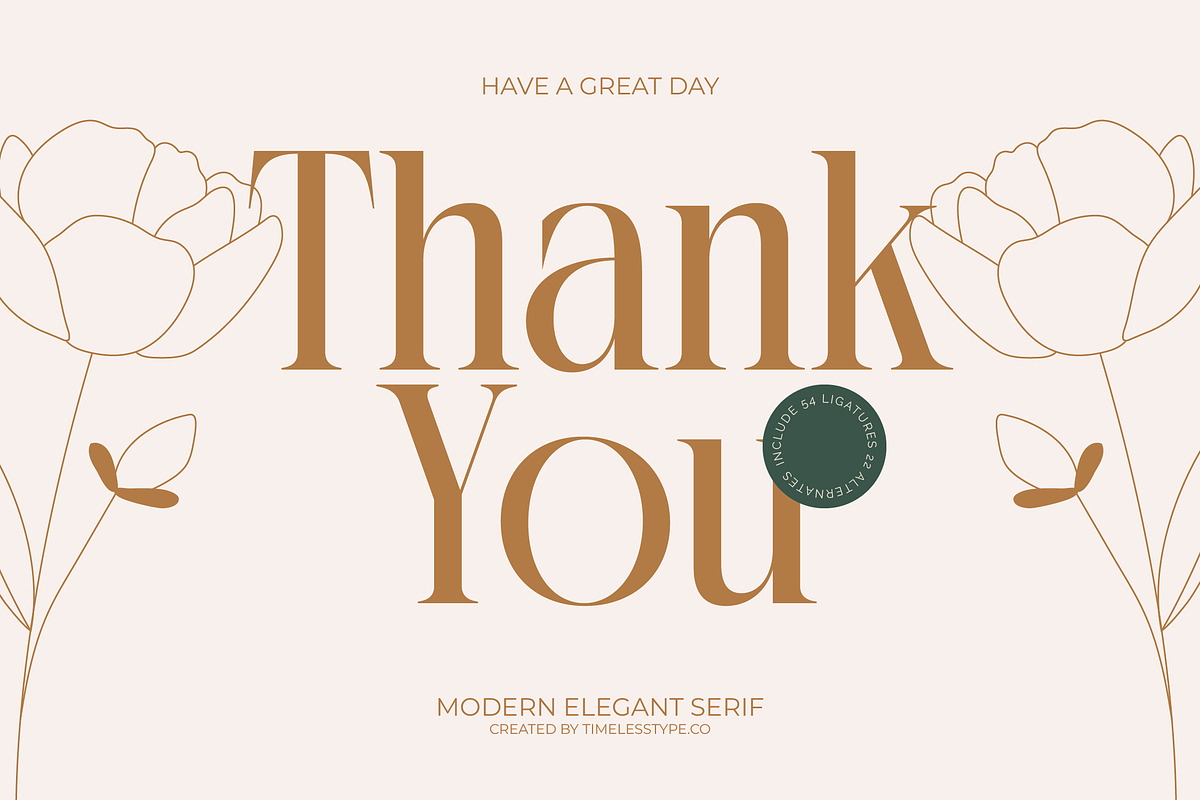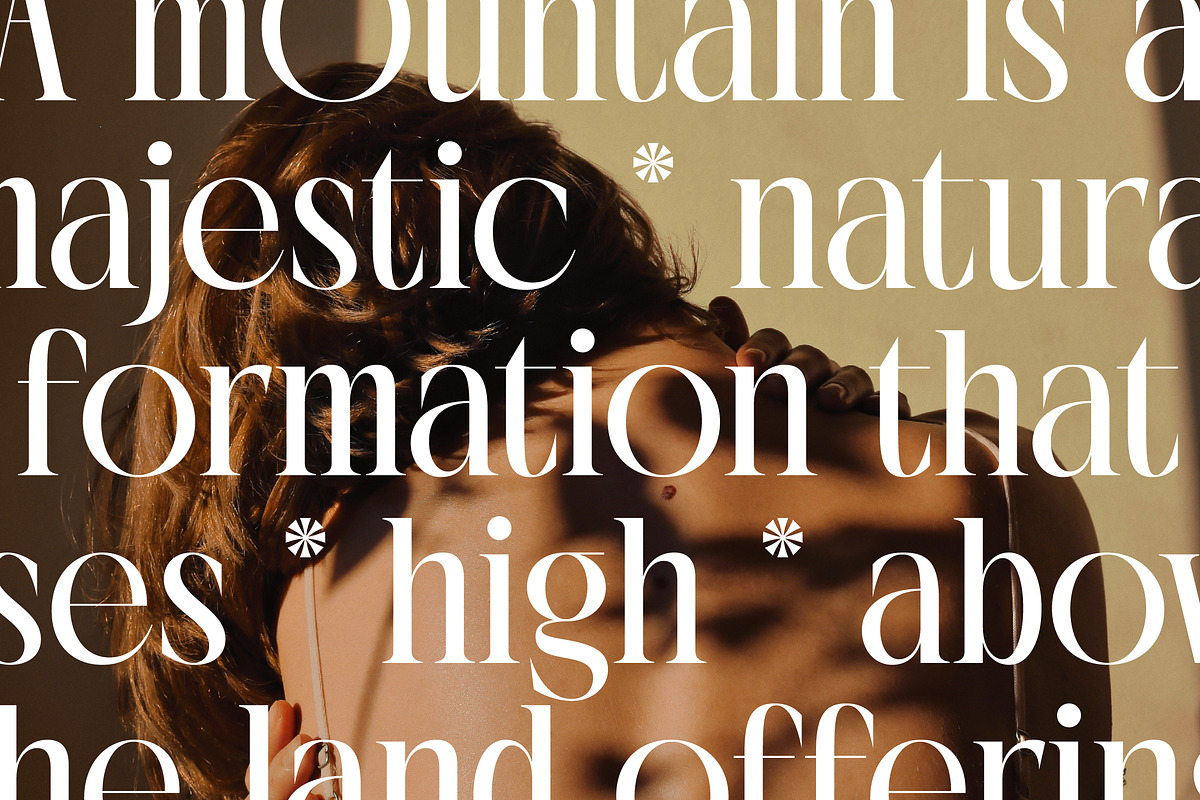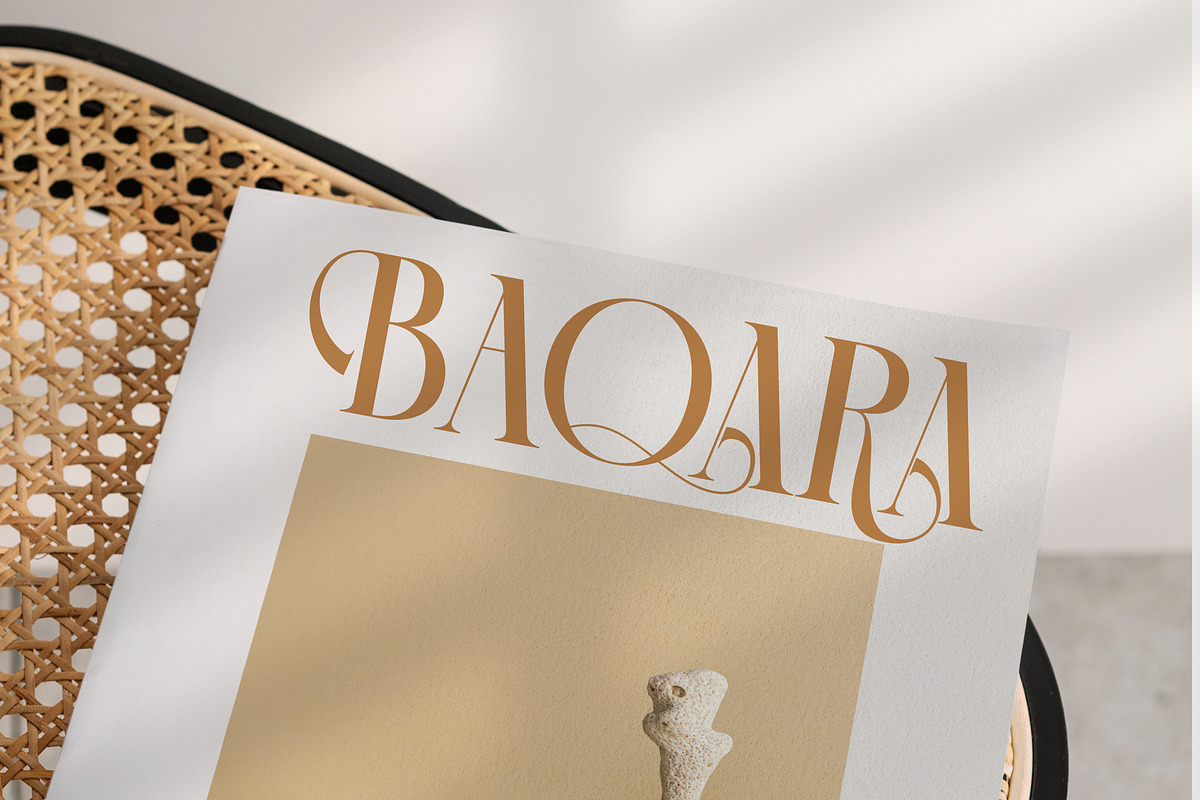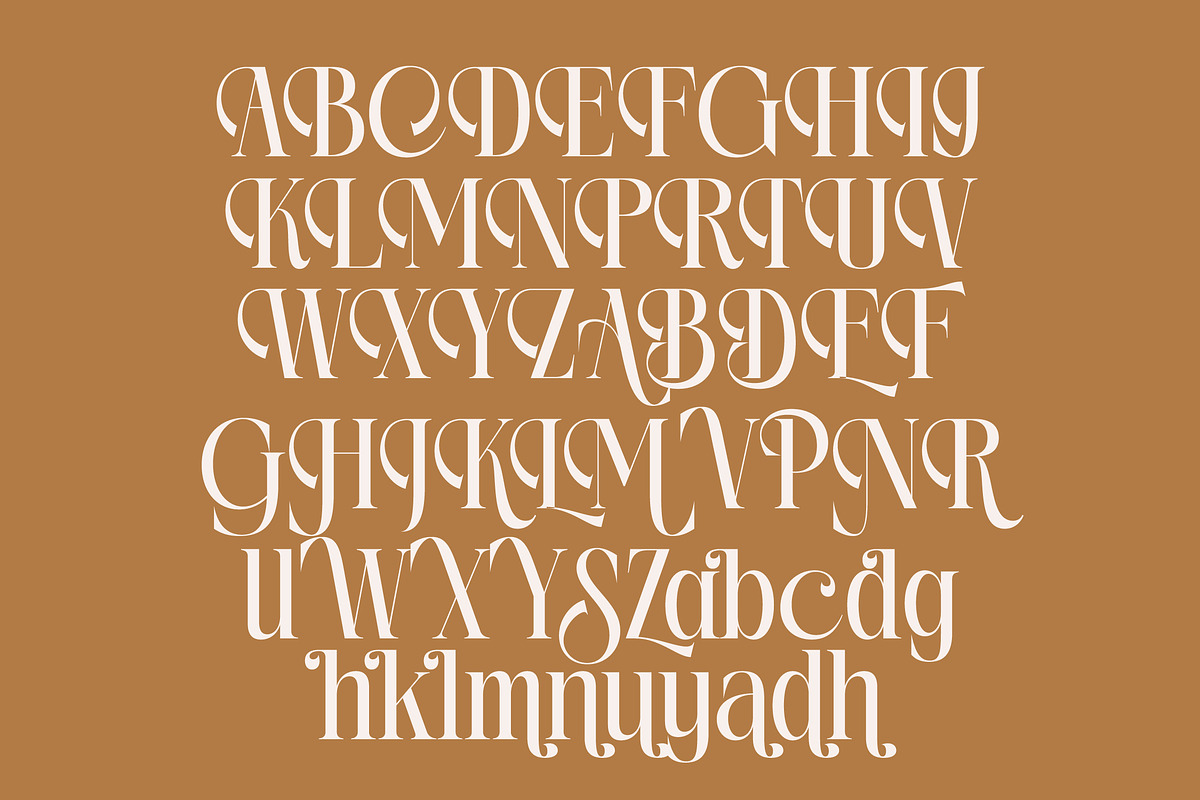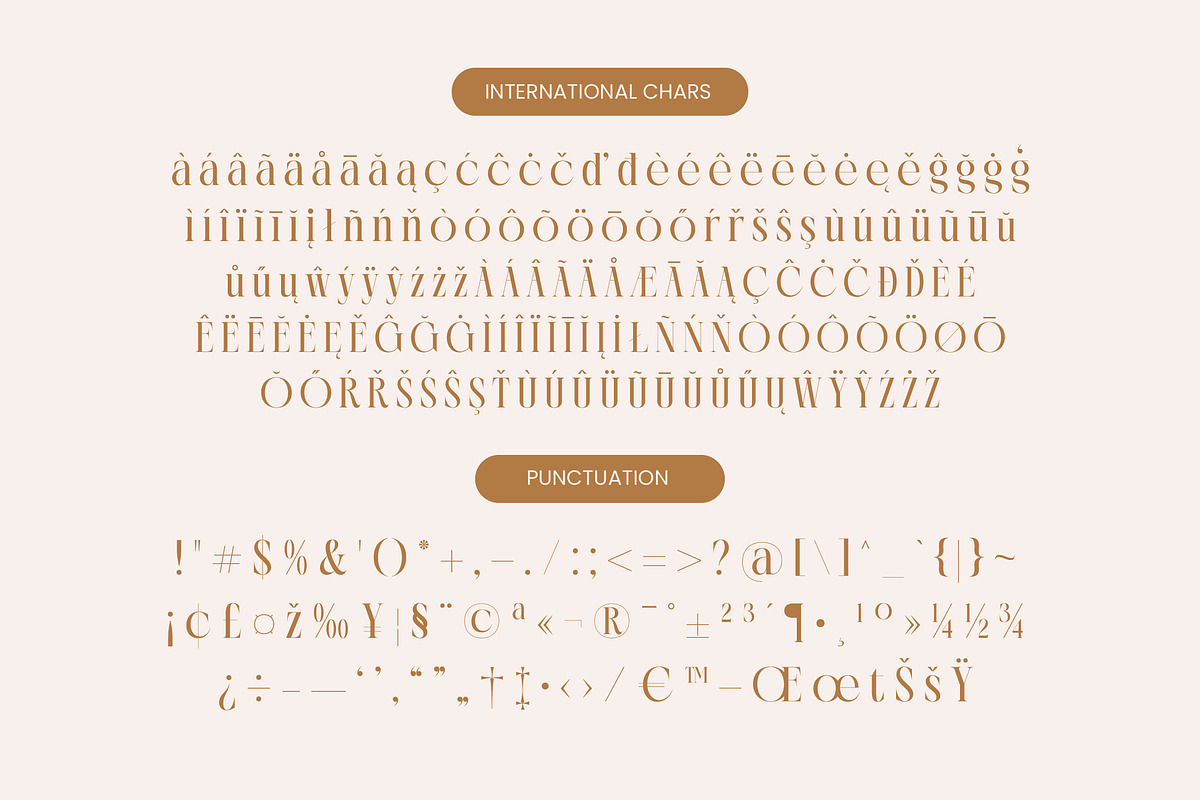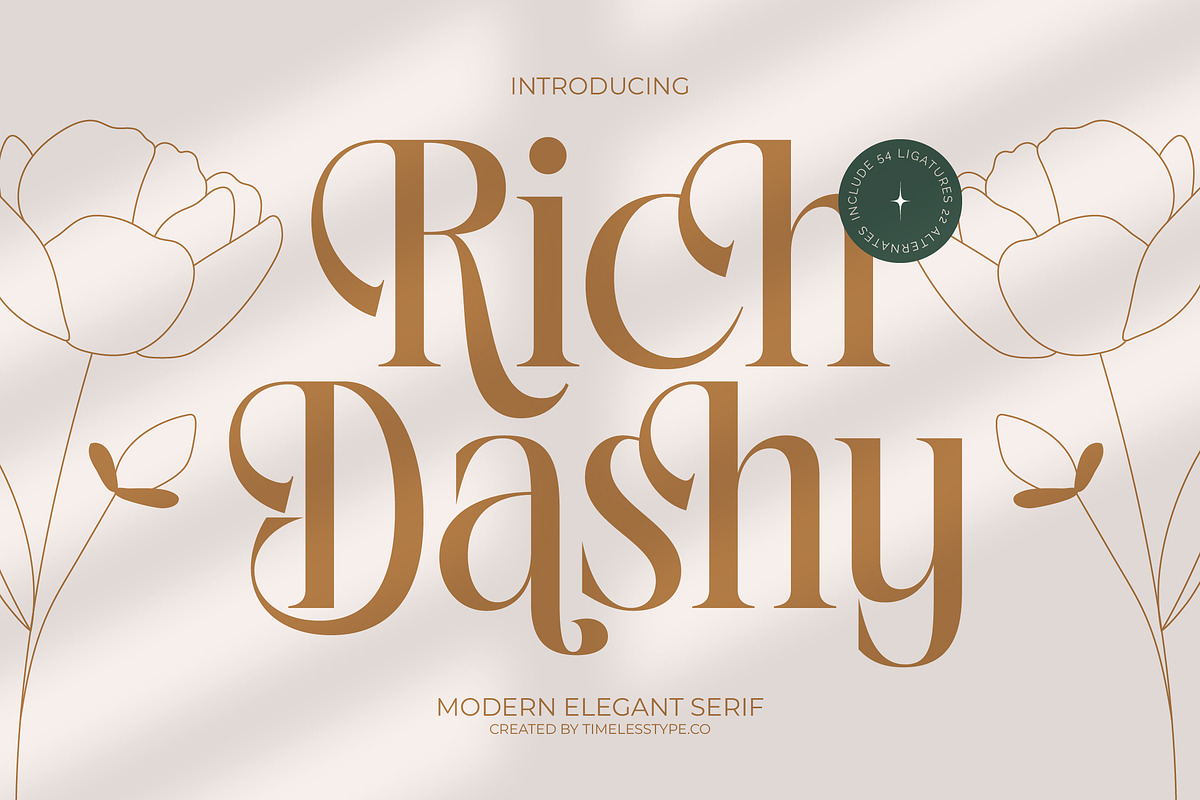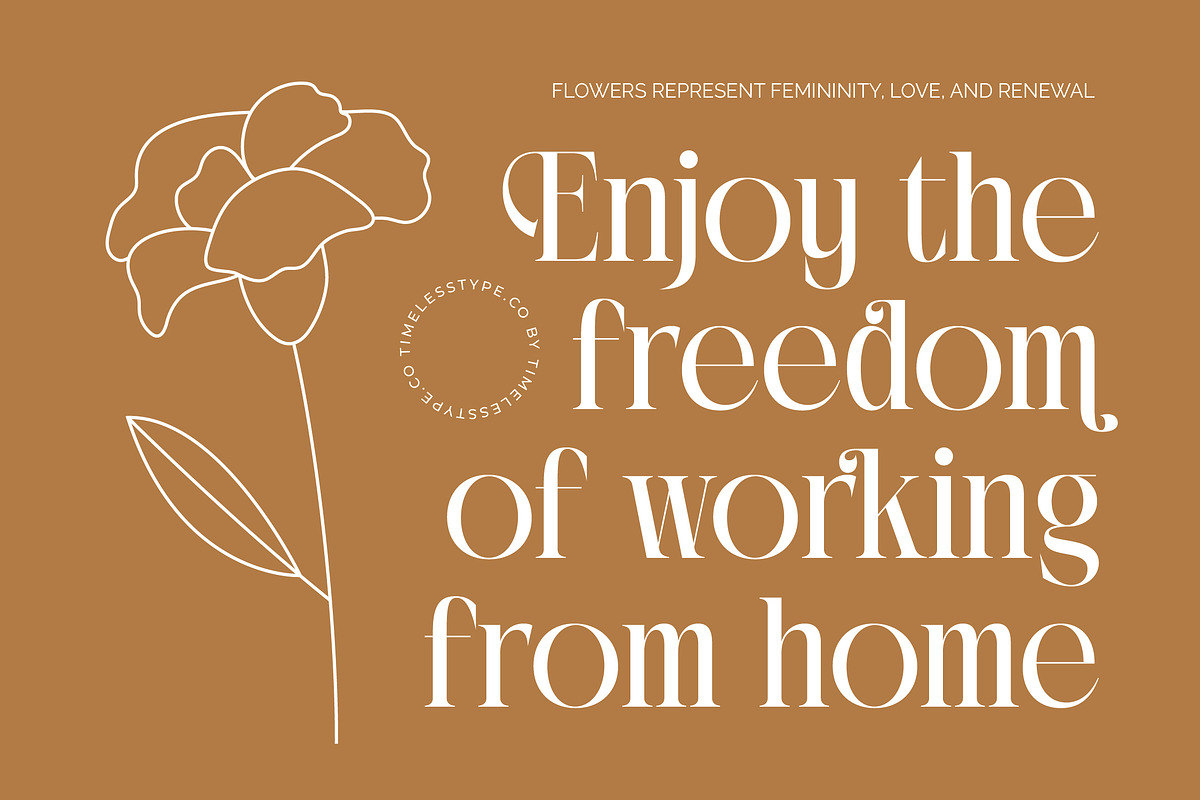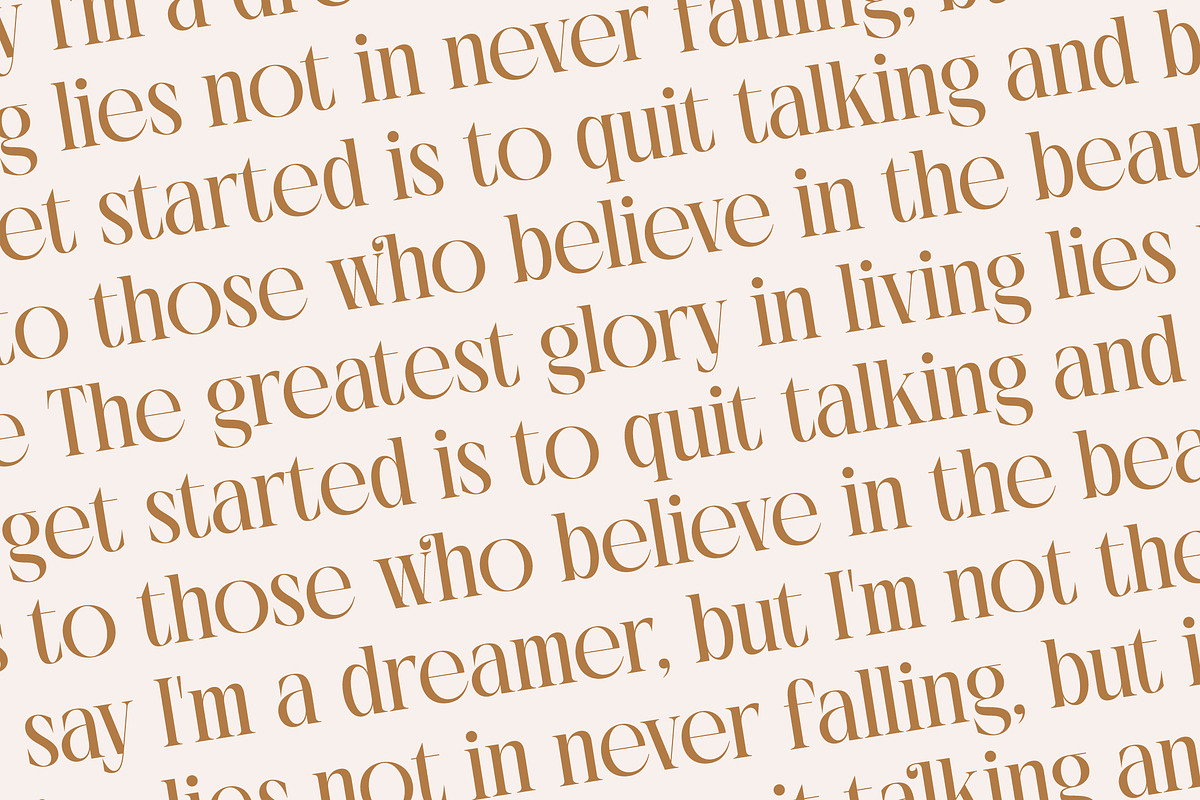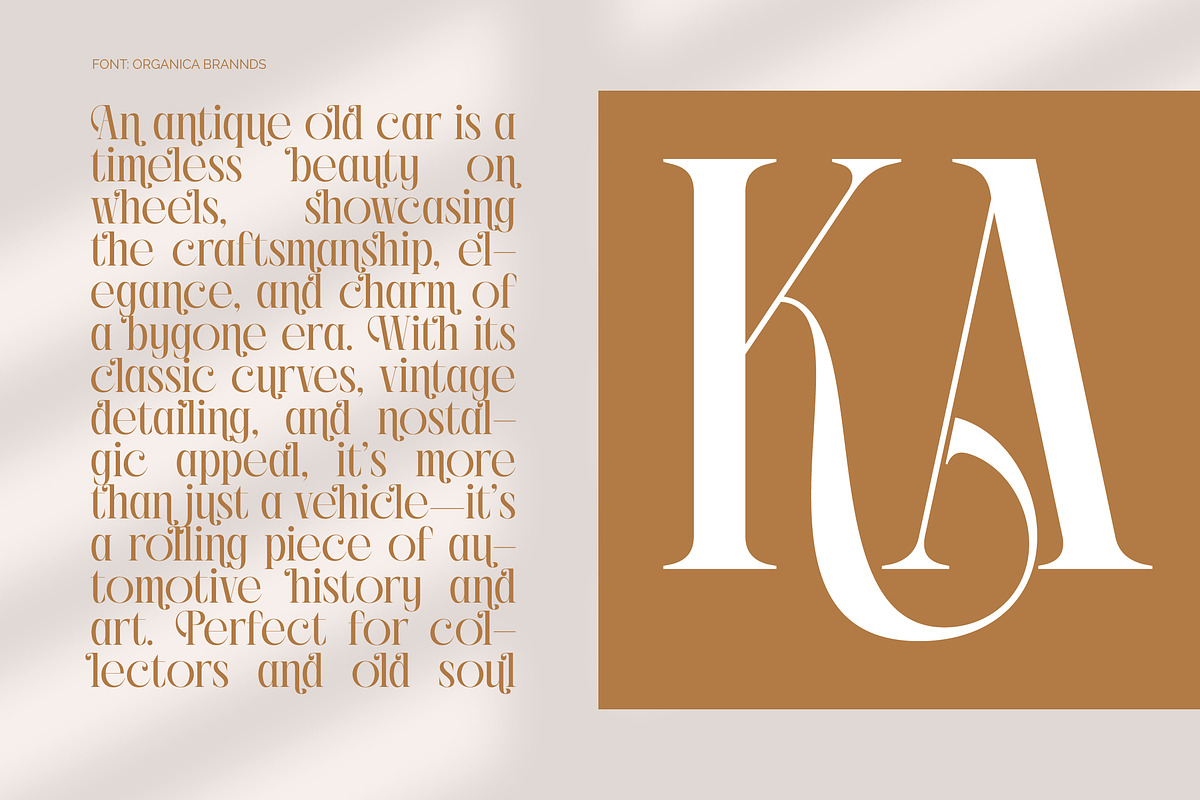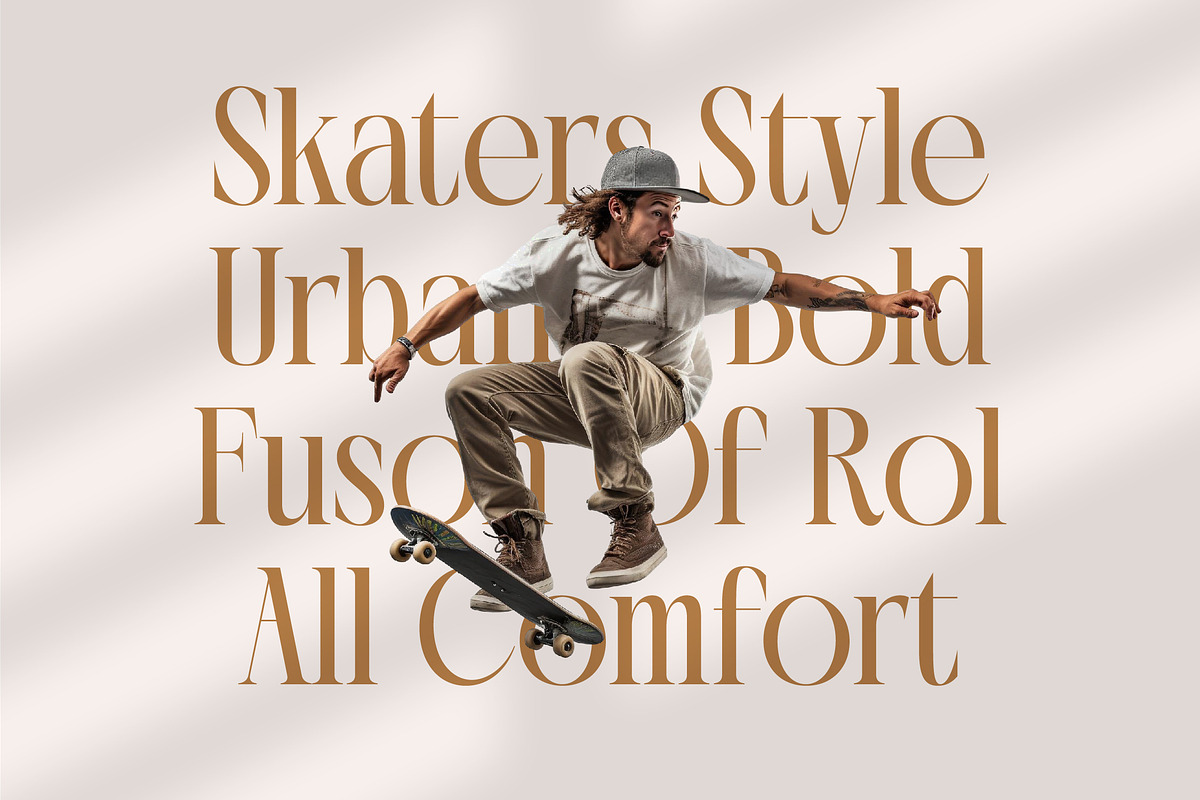
Rich Dashy Modern Elegant Serif
Rich Dashy is the ultimate expression of timeless elegance, designed to transform your creative vision into a masterpiece of visual storytelling. This typeface brings a breath of fresh air to classic typography, blending sophisticated curves with a bold, contemporary edge.
Inspired by the fluid movements of high-fashion aesthetics and the organic beauty of minimalist floral art, this typeface captures a sense of effortless grace. It reflects an atmosphere where vintage charm meets modern architectural precision, creating a unique visual harmony that elevates any design project.
With its modern serif display qualities and luxury typography appeal, this high-contrast serif commands attention in every layout. It functions perfectly as an editorial font that balances readability with a high branding impact, ensuring your message is delivered with prestige and clarity.
Tapping into the current modern serif trend, this typeface is a must-have for designers seeking editorial display fonts that stand out in a crowded digital landscape. It embraces the shift toward character-driven typography, offering a distinct personality that resonates deeply with upscale audiences.
Whether you are crafting a high-end logo design or developing a cohesive branding identity, this font excels in editorial layouts, luxury packaging, and romantic wedding stationery. It is a staple for the fashion industry, providing a chic and polished look for magazines, lookbooks, and high-style advertising.
The collection is packed with creative possibilities, including 54 unique ligatures and 32 stunning alternates that allow for custom letterforms and unique swashes. It also features comprehensive multilingual support and a full set of international characters, making it a versatile tool for global design projects.
- Ligature 54 Alternate 22